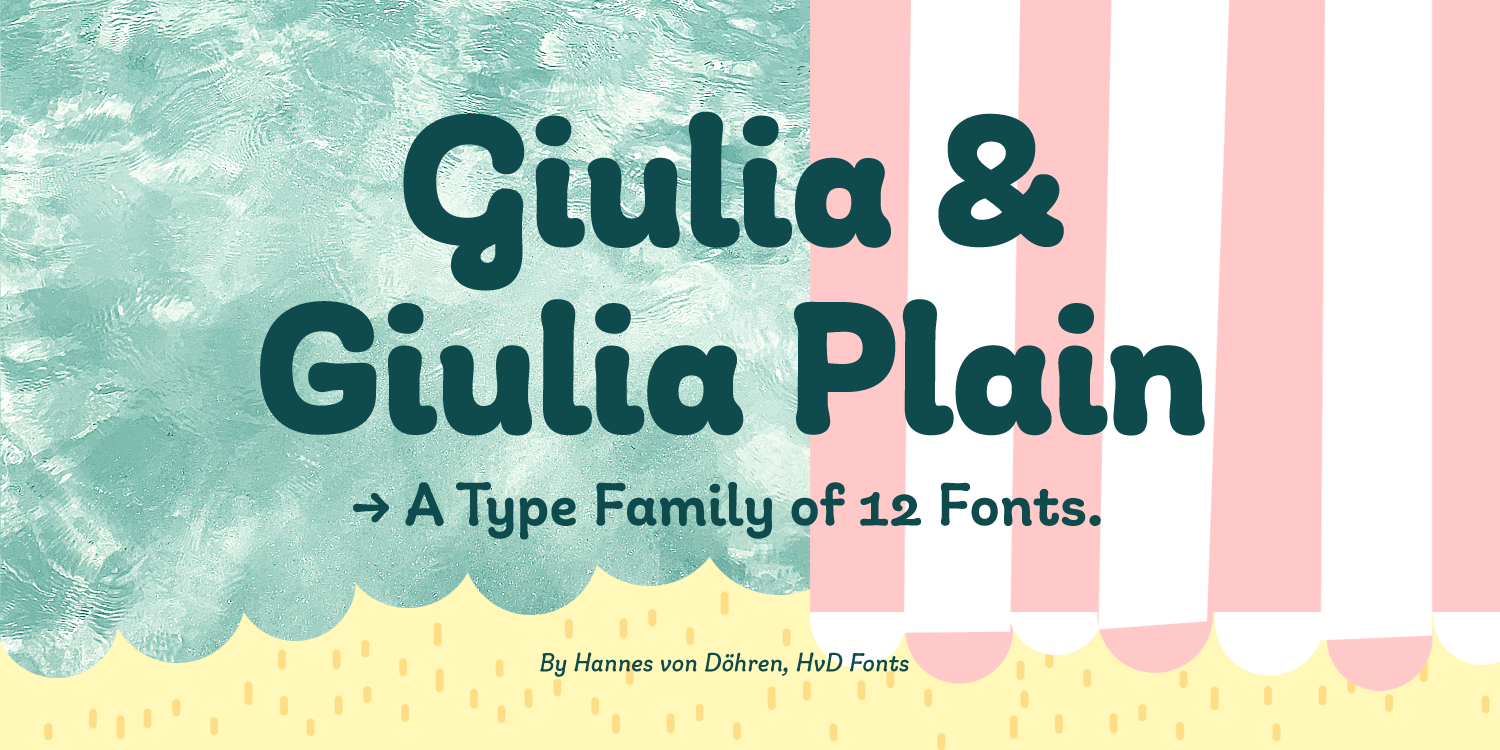
Giulia Plain and Giulia are two sweet type families consisting of 12 Fonts in total. Besides a fancy curly version called Giulia there is this second version with a more straight architecture: Giulia Plain. Informal and easy going at first sight and perfect for display settings, however the straight architecture makes it also nice for shorter to medium texts. This contemporary type family is ideal for use in retail, packaging, games, food, kids applications and advertising and pairs perfectly with Giulia.
I enjoy drawing beautiful forms and searching for new
lettershapes which fit perfectly into one concept – yes, this might be one
reason why I am a type designer. Giulia Plain is a non connected hand drawn
type face – a kind of hybrid between a rounded sans serif and a script
face. The fonts are easy to read and can be used for any kids related project, packaging, logo or poster design. There is also an extravagant companion to the more conventional letterforms of Giulia Plain called: Giulia.
Here is a comparison between the curly Giulia and the more reduced Giulia Plain. Different letter shapes influcence the overall appearance of the typeface and make them suitable for different specific fields.
In addition to the more conventional letterforms of Giulia Plain we added the extravagant and curly Giulia, still breathing the air of her bigger sister, Giulia comes with more curly and unique letterforms. You can compare the shapes and you will see that Giulia Plain is orientated towards a more “learned” architecture. This makes it more readable in smaller sizes or longer texts – some users might even prefer the cleaner version for headlines.
A font of today’s needs has to include more than just the alphabet and some punctuation. Besides a big number of accented letters, making sure that the typeface has a good language support, a font should include several features for excellent typographic work joining forces with the layout applications of the time and of course the user. Here is a selection of what this font family has to offer under the hood.